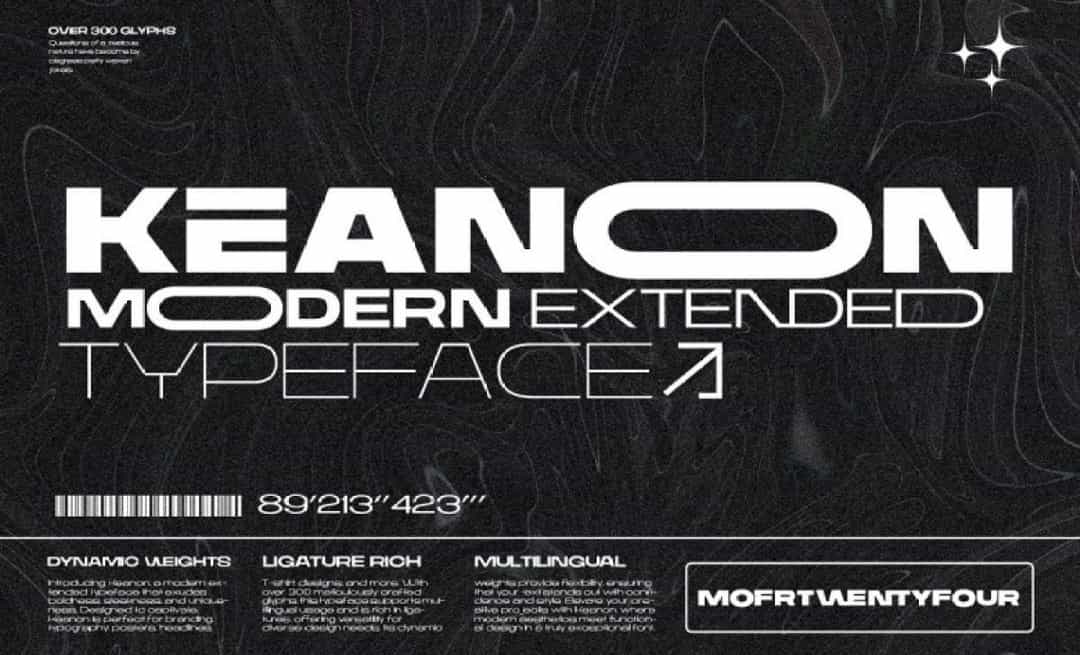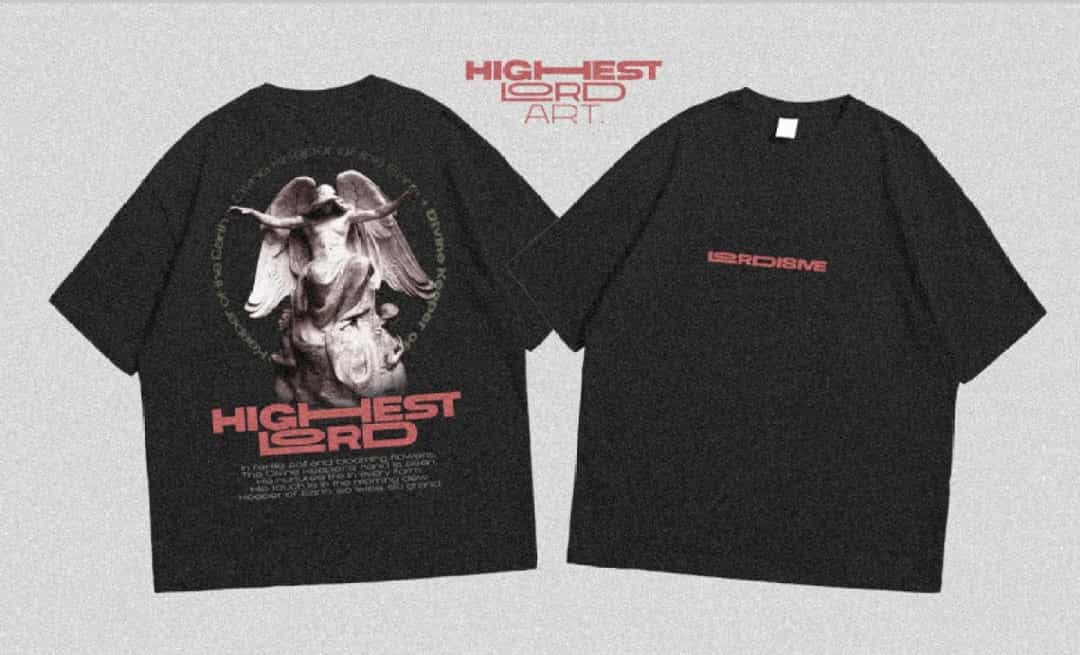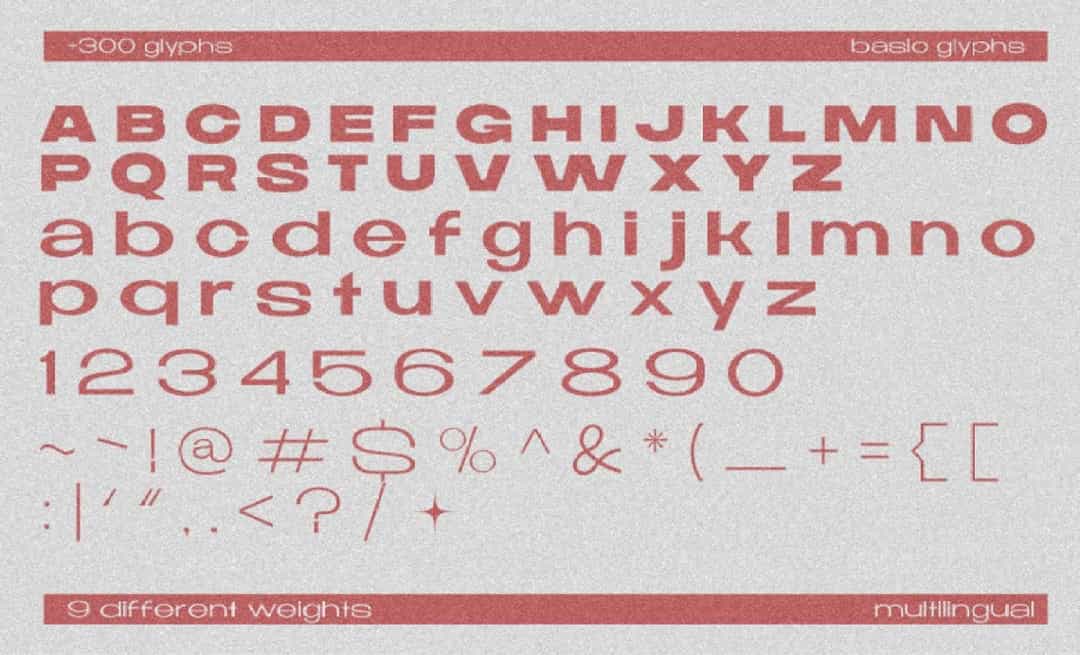
Keanon is described as a mixed sans serif typeface because it features certain characteristics of each of the two categories: modern and extended typeface. This font has many glyphs over 300 and contains many ligatures and supports multiple languages making it highly useful.